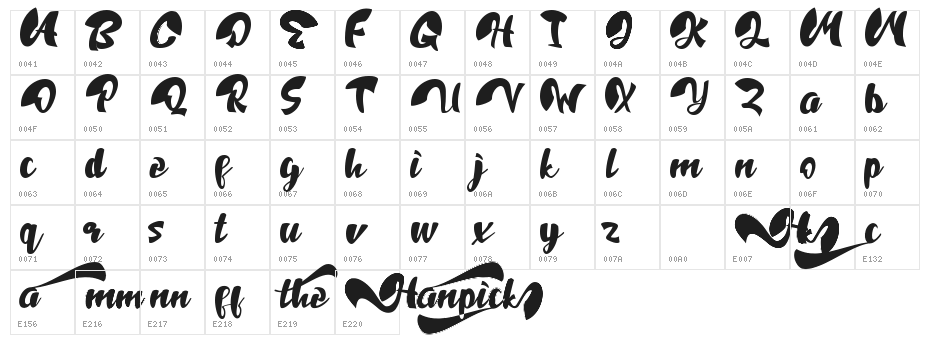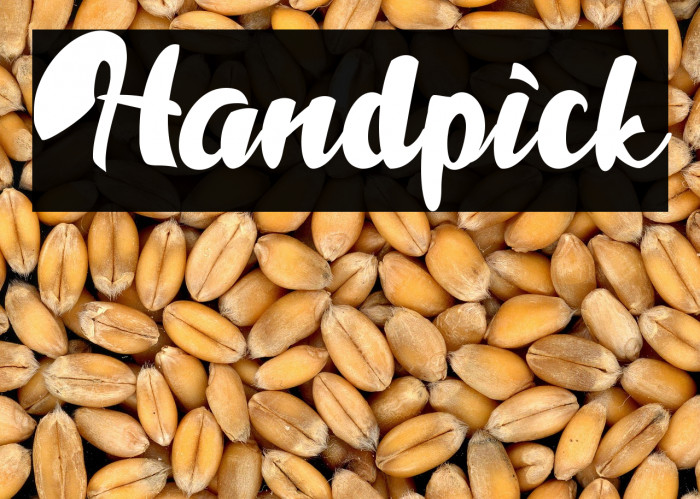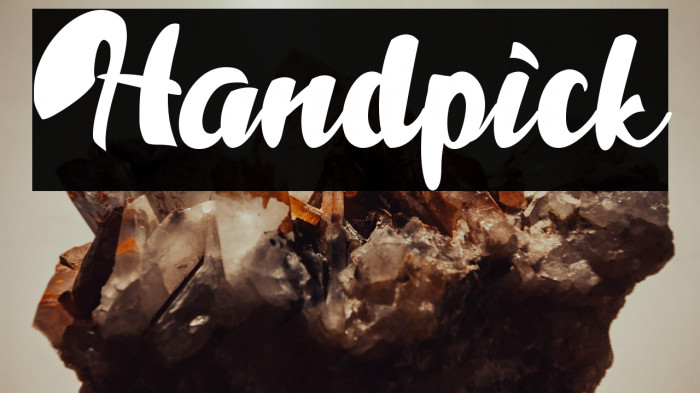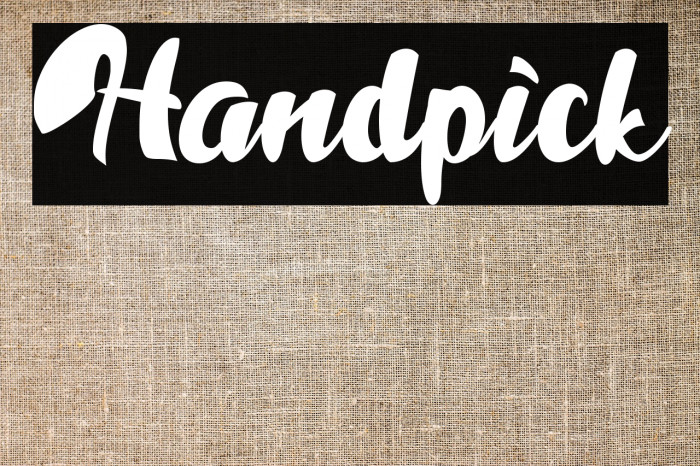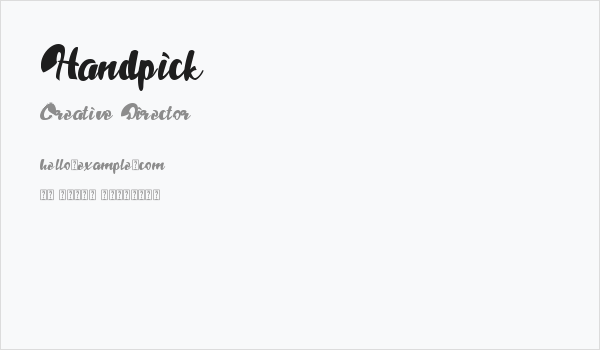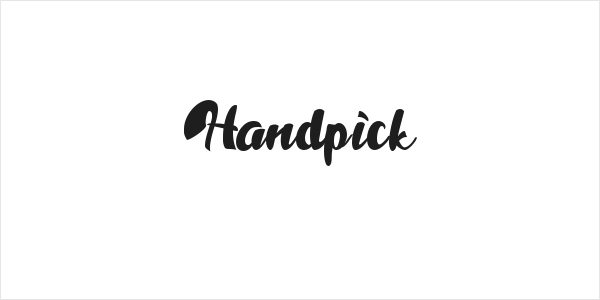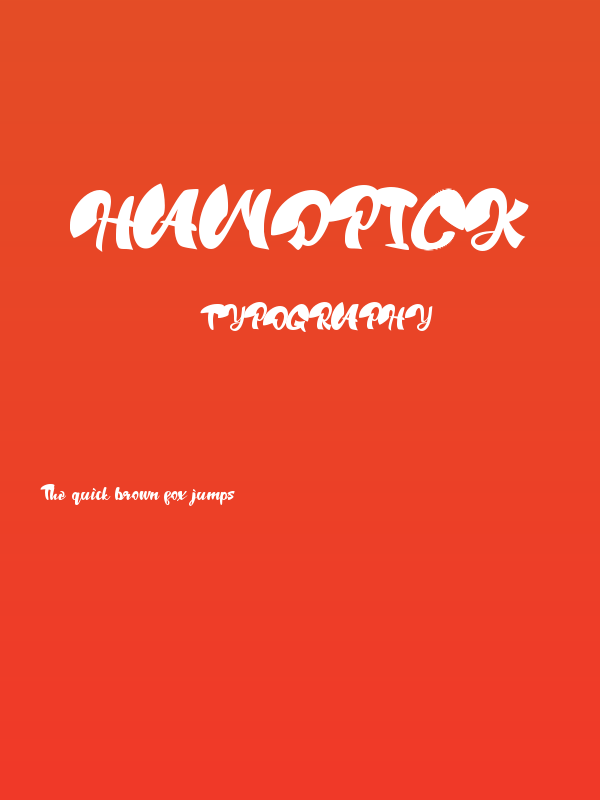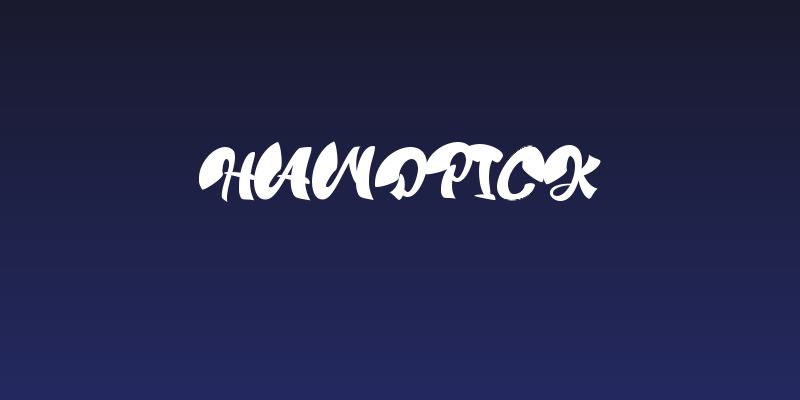
Handpick Font
Handpick Description
This font features a bold and expressive script style, characterized by its flowing, cursive letterforms that convey a sense of elegance and dynamism. The uppercase letters are particularly striking, with sweeping curves and dramatic flourishes that add a touch of sophistication. The lowercase letters maintain a consistent style, with smooth connections and rounded forms that enhance readability. The font's overall appearance is both artistic and modern, making it suitable for a variety of creative applications. The absence of numerals and special characters suggests a focus on alphabetic expression, ideal for projects that emphasize text over numerical data.
| Use Case | Logos, Headlines, Artistic projects |
| Proposed Projects | Ideal for wedding invitations, branding, logo design, and artistic posters. |